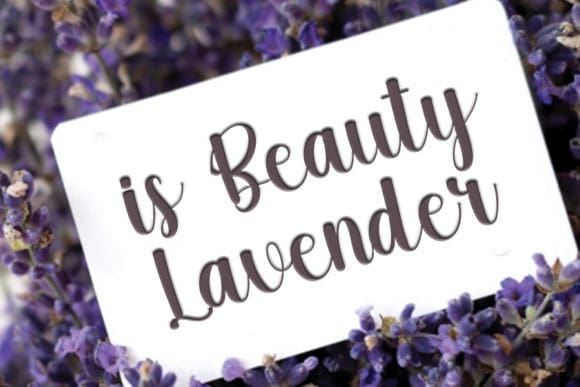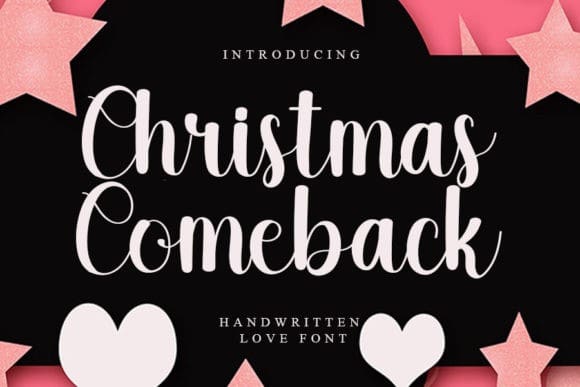
Christmas Comeback Font
Christmas Comeback Font is a stylish handwritten font with a contemporary atmosphere and impeccable form, inspired by a timeless classic calligraphy. This font is PUA encoded which means you can access all of the glyphs and swashes with ease!